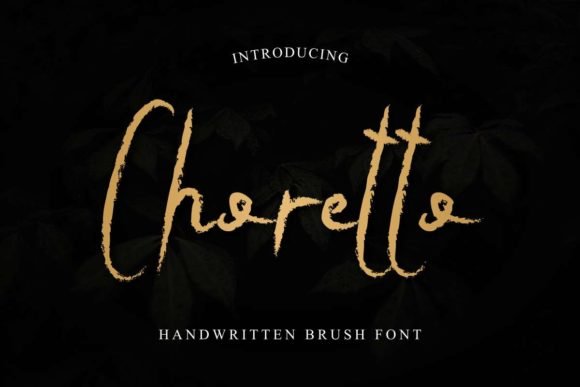
Introduction to Choretto Font
Choretto embodies fun, quirkiness and authenticity.
This handwritten font is the perfect fit for all of your logos, branding, social media, and crafty DIY projects .
Key Features of Choretto Font